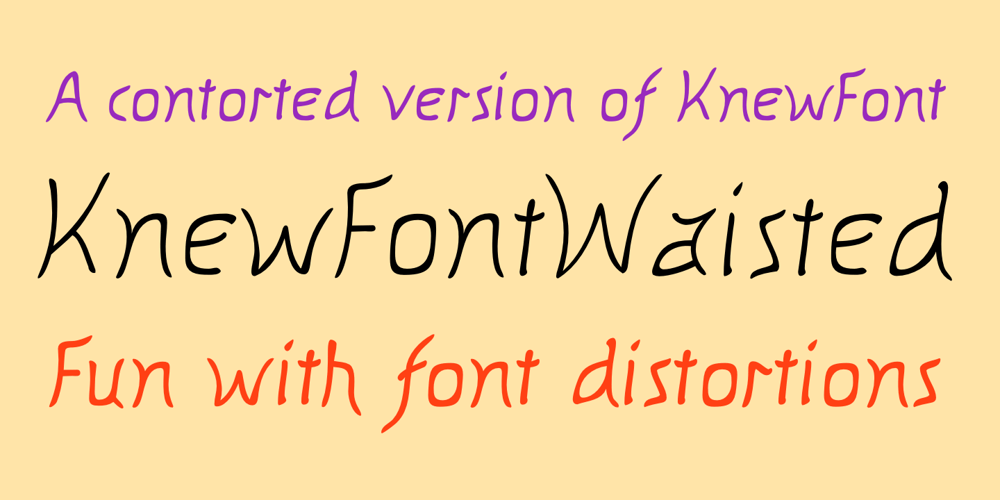
KnewFontWaisted Font Family was designed by Robert Schenk and published by Ingrimayne Type. KnewFontWaisted contains 2 styles and family package options. KnewFontWaisted is a informal font that was produced by distorting the handwritten font KnewFont. It is more concave and compacted than the original.